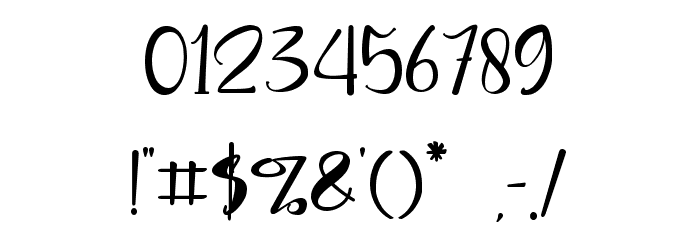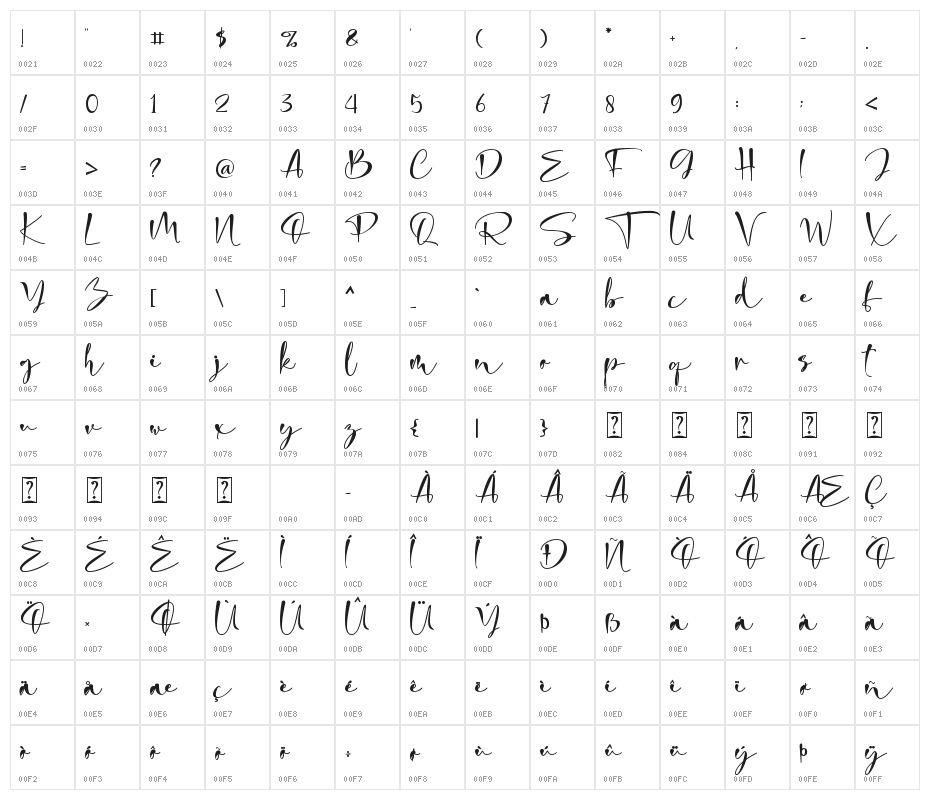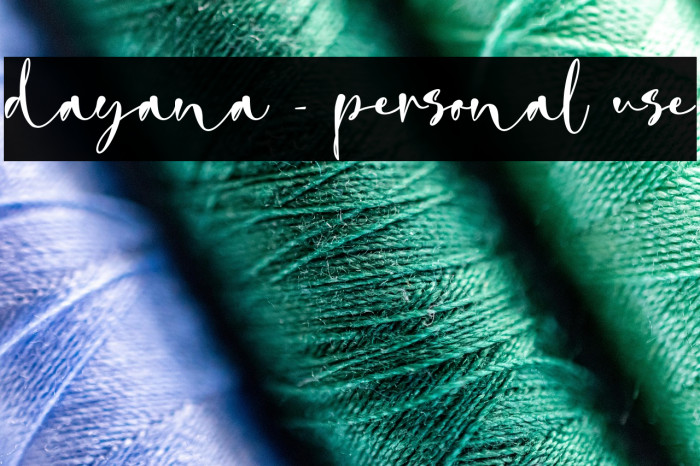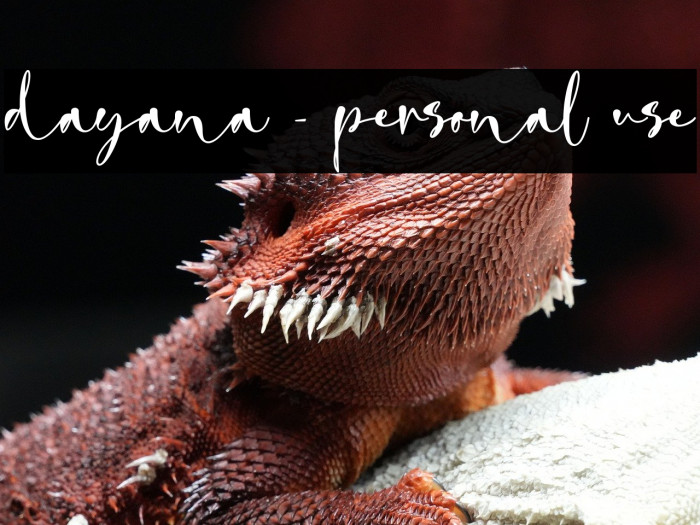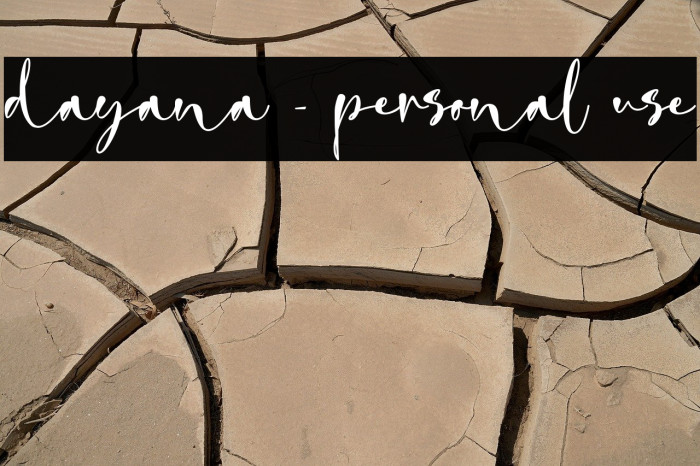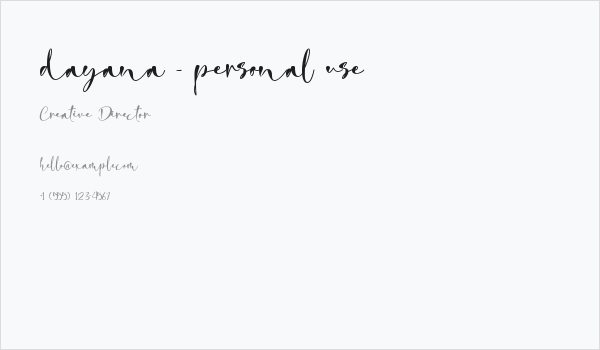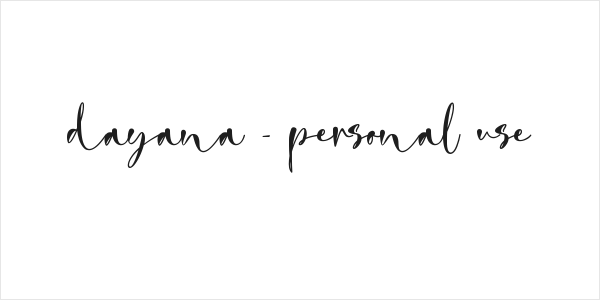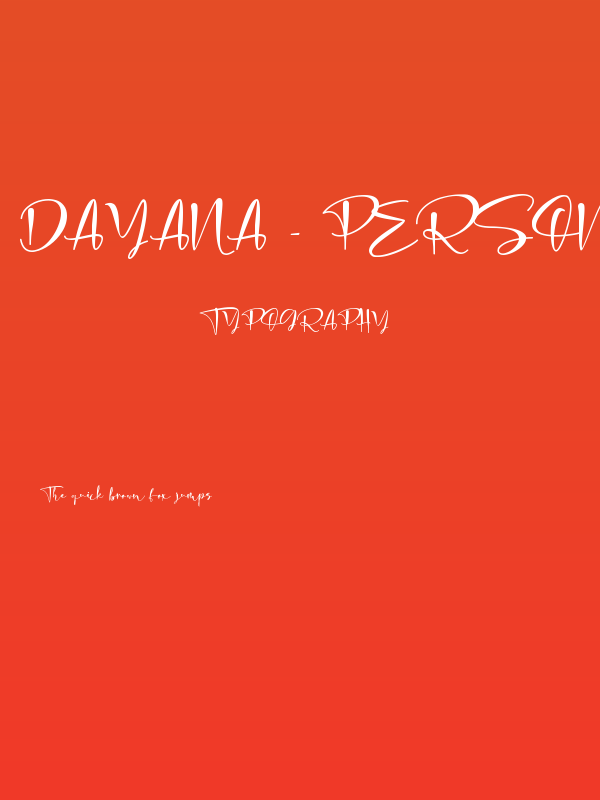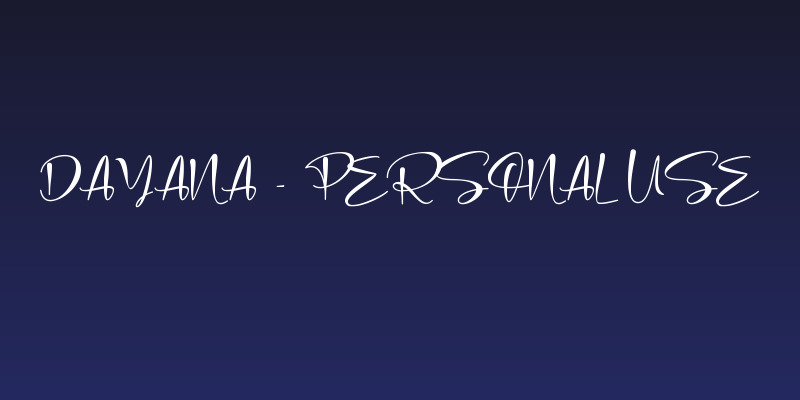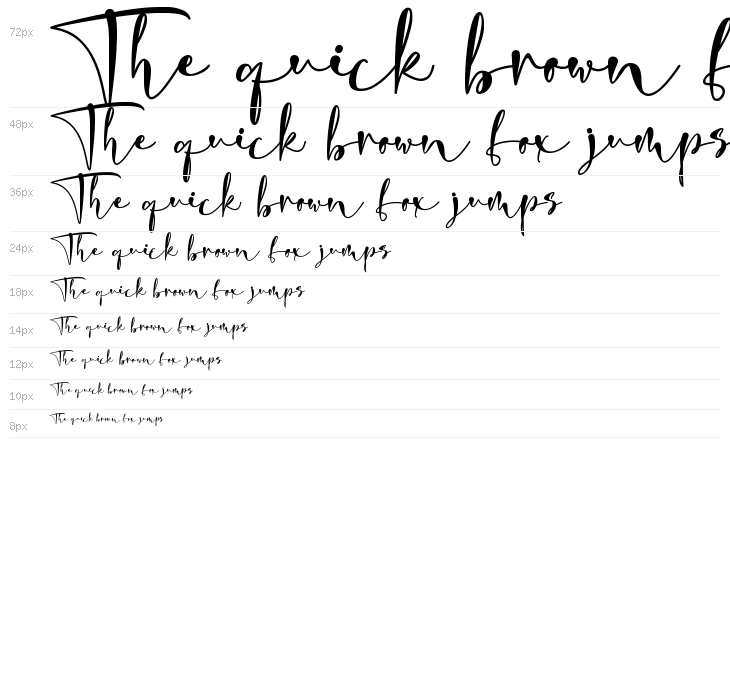
dayana - personal use Font
dayana - personal use Description
This font features an elegant and flowing script style, characterized by its smooth, cursive strokes and artistic flair. The uppercase letters exhibit a graceful, sweeping motion, while the lowercase letters maintain a consistent fluidity, creating a harmonious balance. The numerals are clear and distinct, complementing the overall aesthetic. Special characters are designed with a similar attention to detail, ensuring they blend seamlessly with the rest of the typeface. This font exudes a sense of sophistication and creativity, making it ideal for projects that require a personal touch.